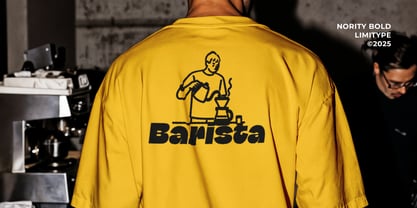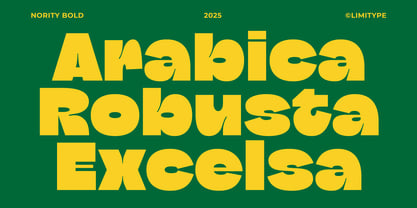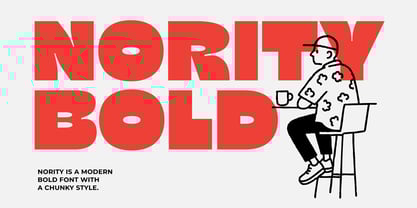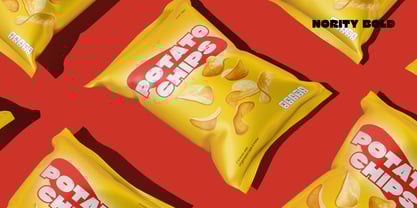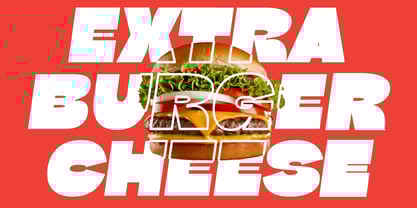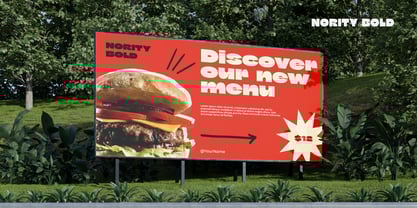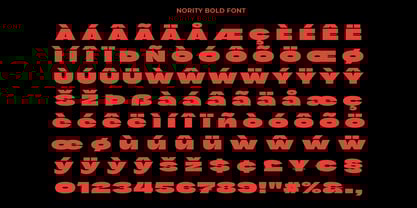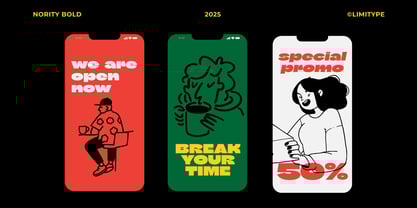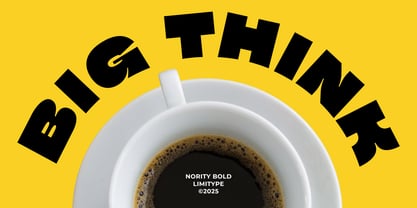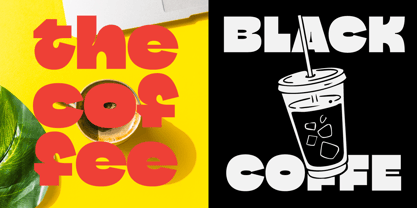
Nority
The Nority Font Family was designed by Muhammad Muammar, Furqan Sudirman and published by limitype. Nority contains 2 styles and family package options. More about this family
Nority is a bold and chunky display font style with strong geometric construction and modern inktrap inspired details that give each letter a distinctive, playful character. Its thick strokes and square proportions give it a modern, confident, and impactful appearance. The font stands out with a solid and stable presence, making it perfect for logos, posters, and packaging that aim to stand out with style, expression, and memorability. Nority available with: Uppercase Lowercase Number Symbol Multilingual